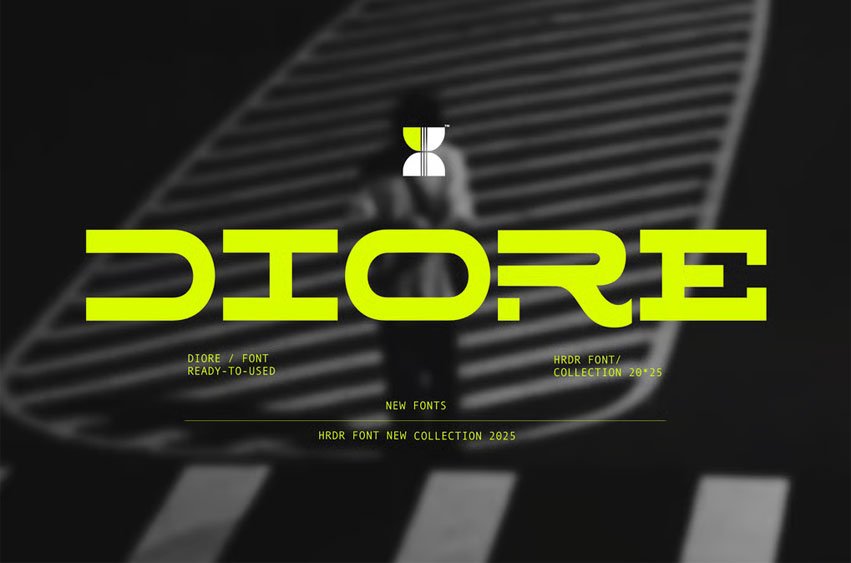
Diore Font is a new Serif Display Font. This typeface design gives a modern and elegant look. This font is well-suited as both a workhorse text and display font for branding, advertising, packaging, headlines, magazines, websites, logo designs, and more.